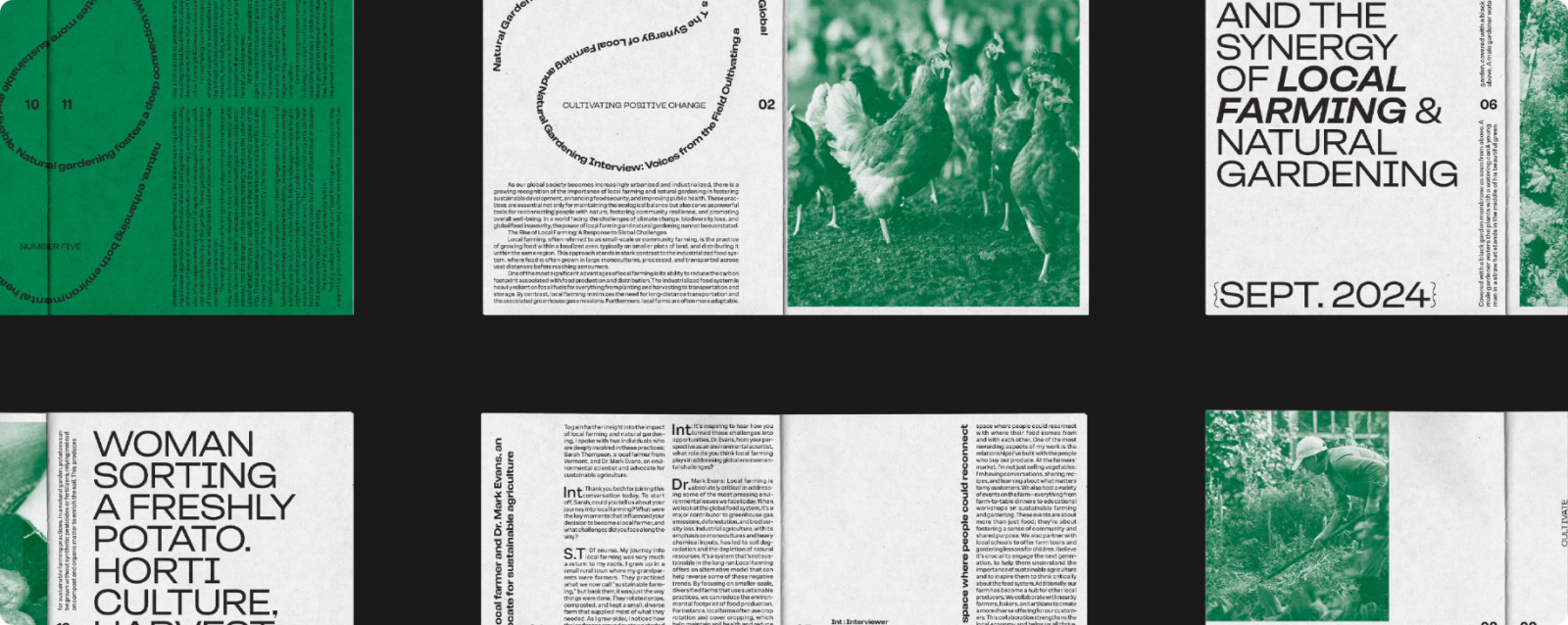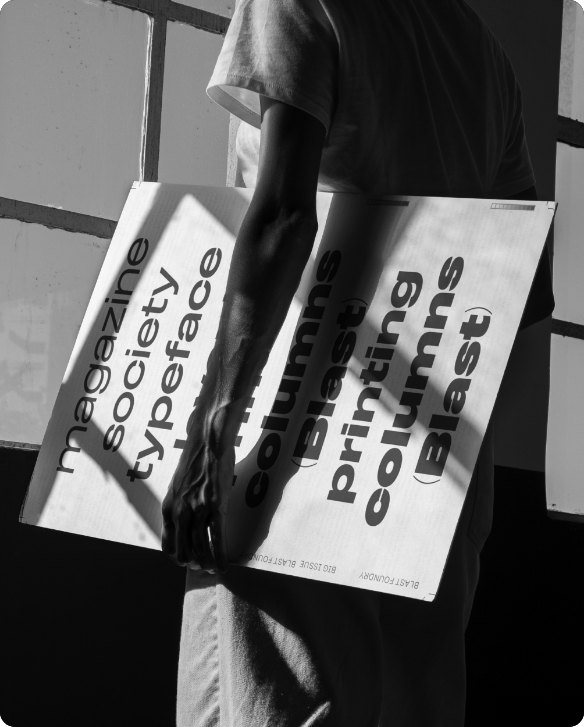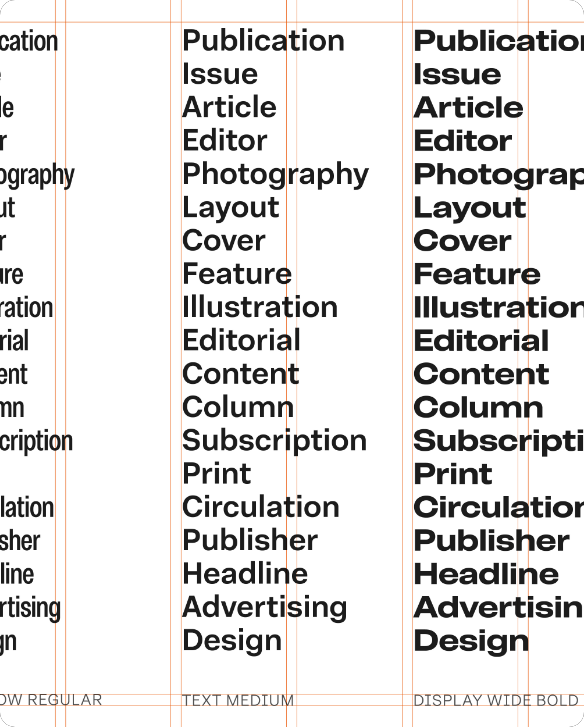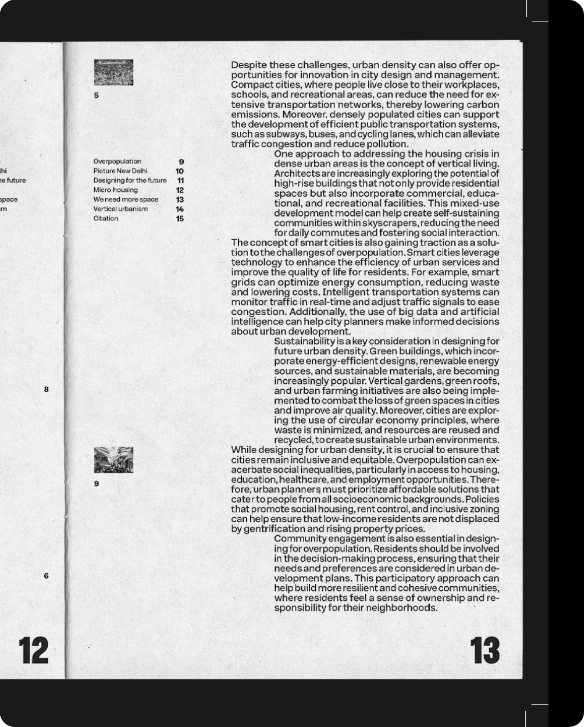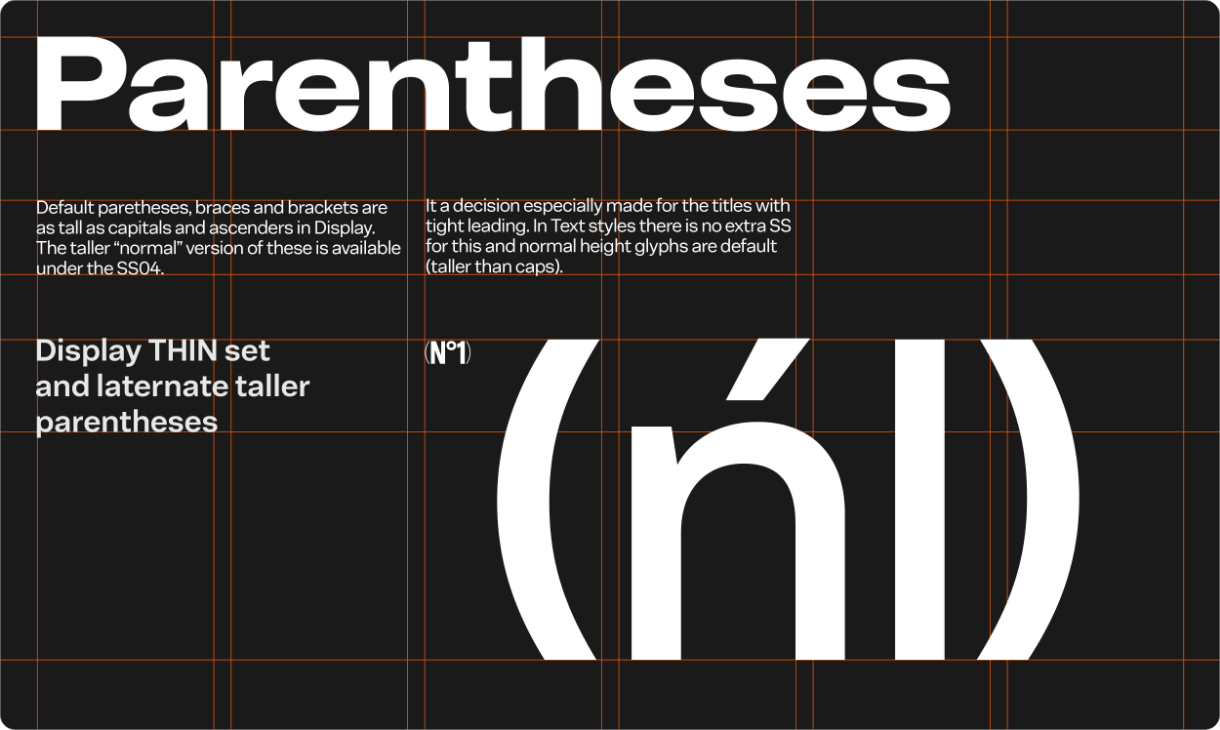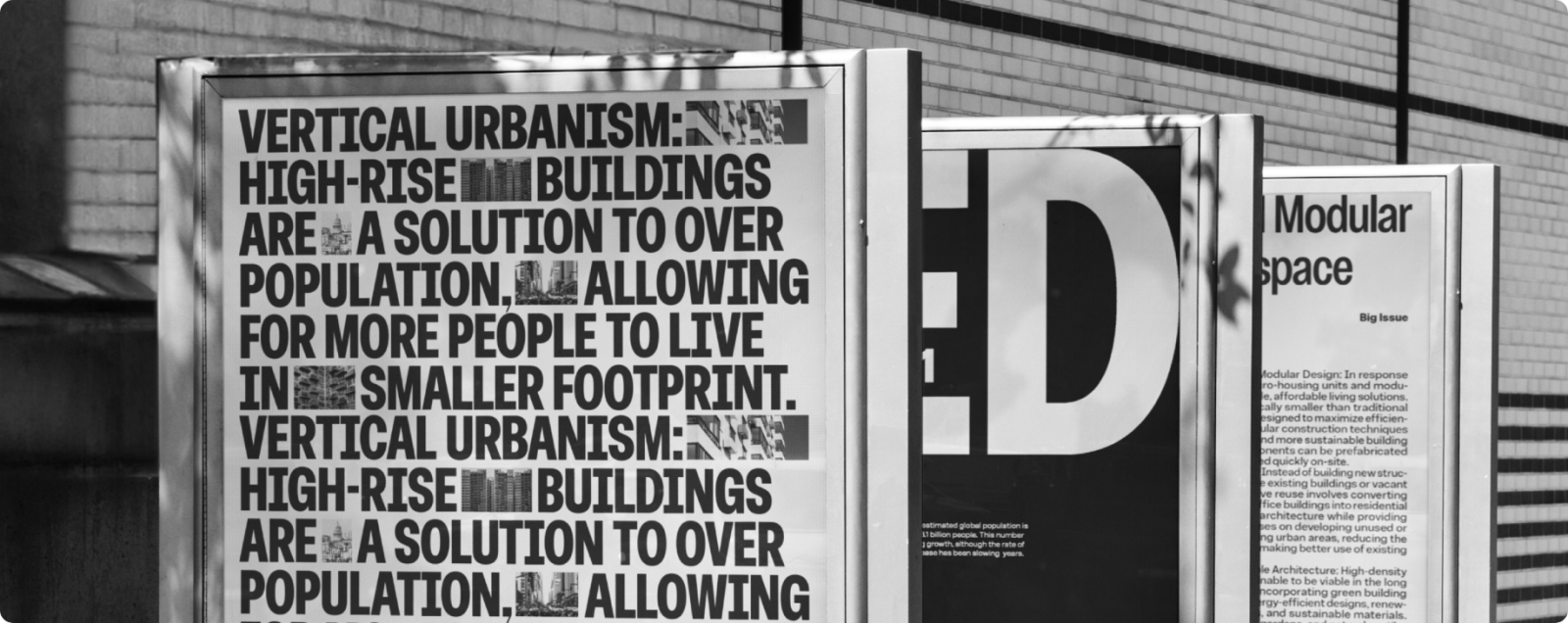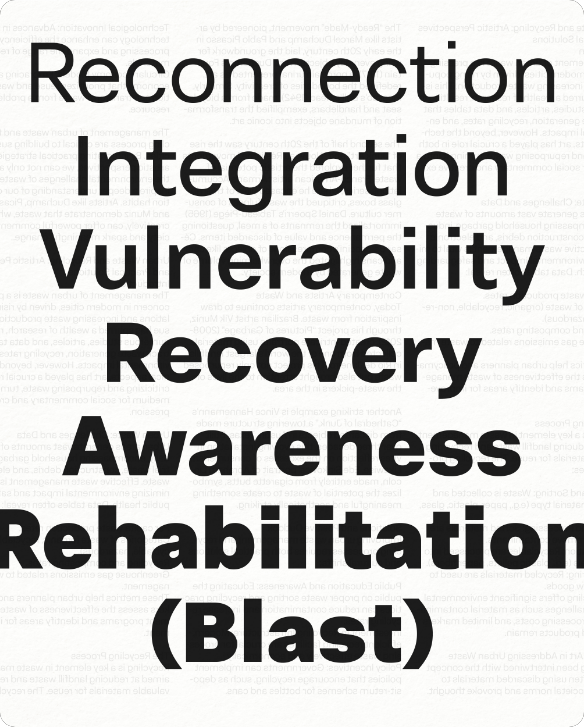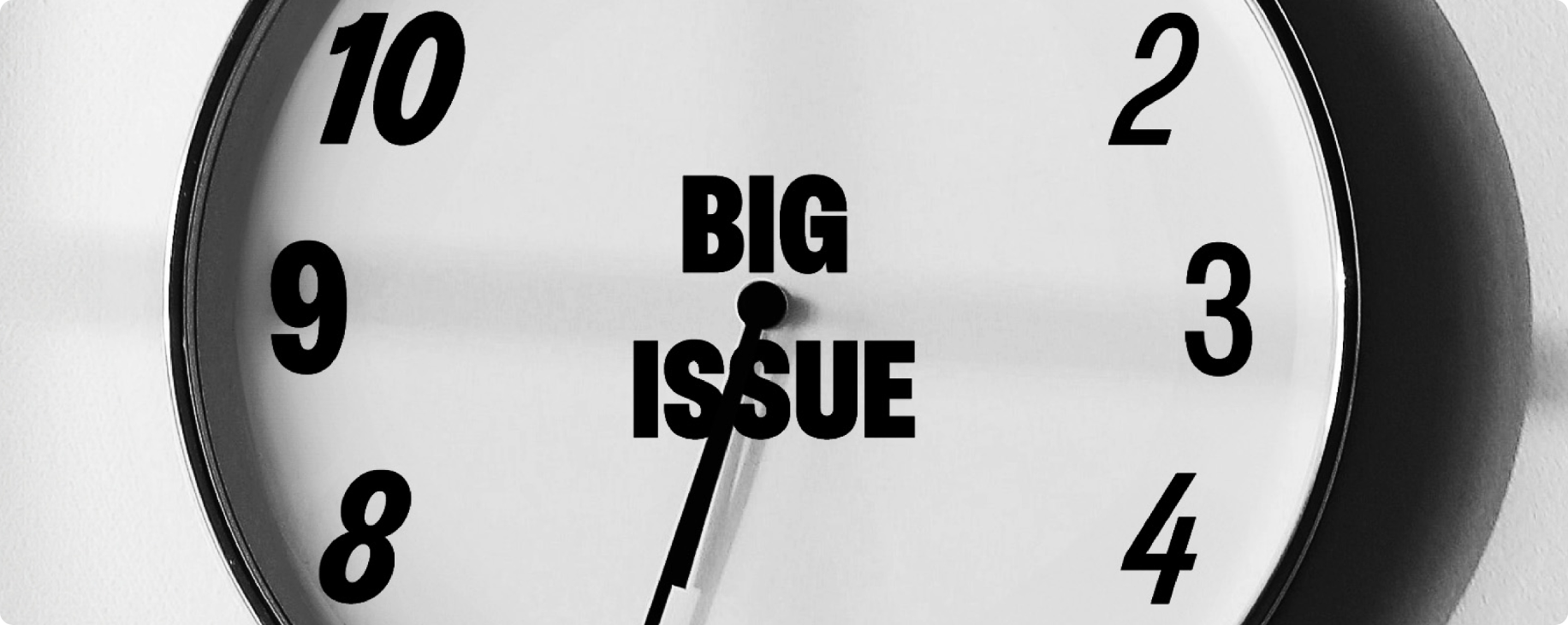
The Big Issue superfamily is a modern grotesque sans developed with The Big Issue magazine. It started with a bold, single-weight typeface for the 30th-anniversary cover, created in collaboration with Pentagram. Since then, it's grown into a flexible family featuring Narrow, Standard, Wide, and XWide widths, offering solutions for both print and digital needs.
Its design is rooted in historical British grotesque typography, blending classic typographic influences with modern-day functionality. Whether used for bold headlines or refined body text, the Big Issue family works seamlessly across print and digital formats.
The Big Issue superfamily is a modern grotesque sans developed with The Big Issue magazine. It started with a bold, single-weight typeface for the 30th-anniversary cover, created in collaboration with Pentagram. Since then, it’s grown into a flexible family featuring Narrow, Standard, Wide, and XWide widths, offering solutions for both print and digital needs.
Its design is rooted in historical British grotesque typography, blending classic typographic influences with modern-day functionality. Whether used for bold headlines or refined body text, the Big Issue family works seamlessly across print and digital formats. Additionally, 10% of all proceeds from the Big Issue superfamily are donated to the Big Issue, extending the type family’s impact beyond design.